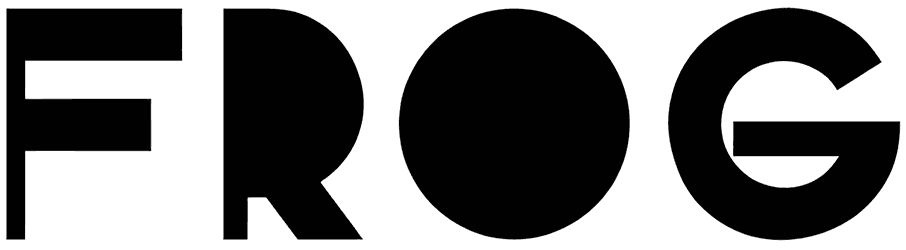
Frog Font
Above all, if you want to create that kind of graphic content that the customers are proud of, a groovy font like Frog would be ideal. Since this all-caps rounded font comes in three different styles, it can insanely widen your selection range in the middle of designing posters, magazines, editorial projects, stationery, or covers.
Considering its ability to share a sense of grunge, classic, or majestic with the audience, the lack of numbers would be easily overlooked.